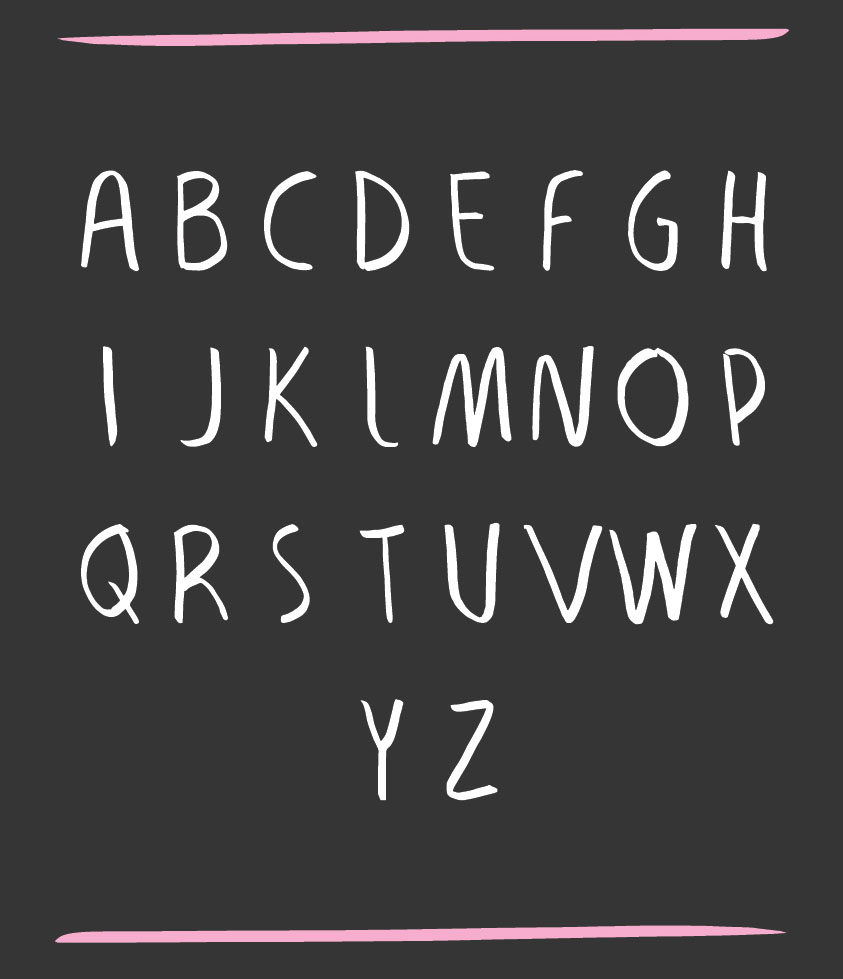
The Best Handmade Fonts References
Handmade font | dafont.com handmade custom preview size handmade € by andi moz in script > handwritten 66,792 downloads (37 yesterday) free for personal use. Download wonderland handmade font (2335465) instantly now! American handmade fonts has intentionally been made, raw, gritty and slightly deformed, this adds to the handcrafted look.
It Also Has Stylistic Alternates,.
No Matter Whether You Are Looking To Designing An Invitation Card Or A Greeting Card Or Promotional Materials Or Otherwise Any Other Type Of Design Project Our Stunning Handmade.
Blacksword Typeface On Behance In Calligraphy Fonts.
Wild youth in free fonts. Handmade is a romantic and sweet calligraphy typeface with characters that dance along the baseline. Hello handmade hello handmade.otf 124 kb | hello handmade hello handmade.ttf 34 kb | designers note details special creative products for.
A Handmade Font By Gastón Jacquier.
We have curated some of the best free font in a handwritten style. Handmade font™ by ingrimayne type individual styles from $14.95 handmade font font family was designed by robert schenk and published by ingrimayne type. American handmade fonts has intentionally been made, raw, gritty and slightly deformed, this adds to the handcrafted look.